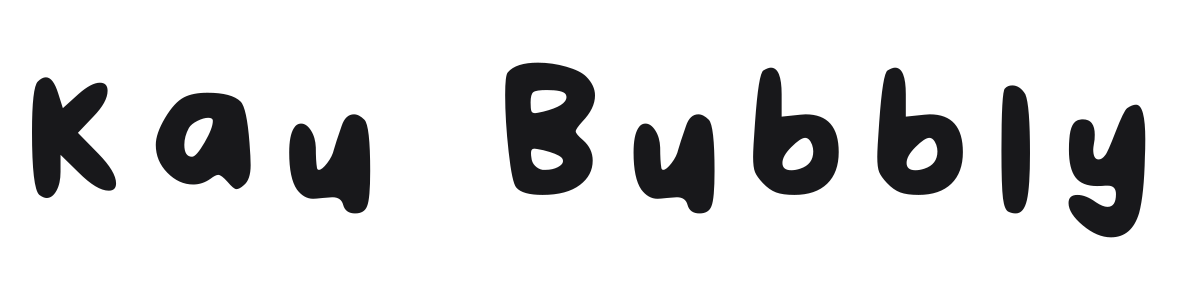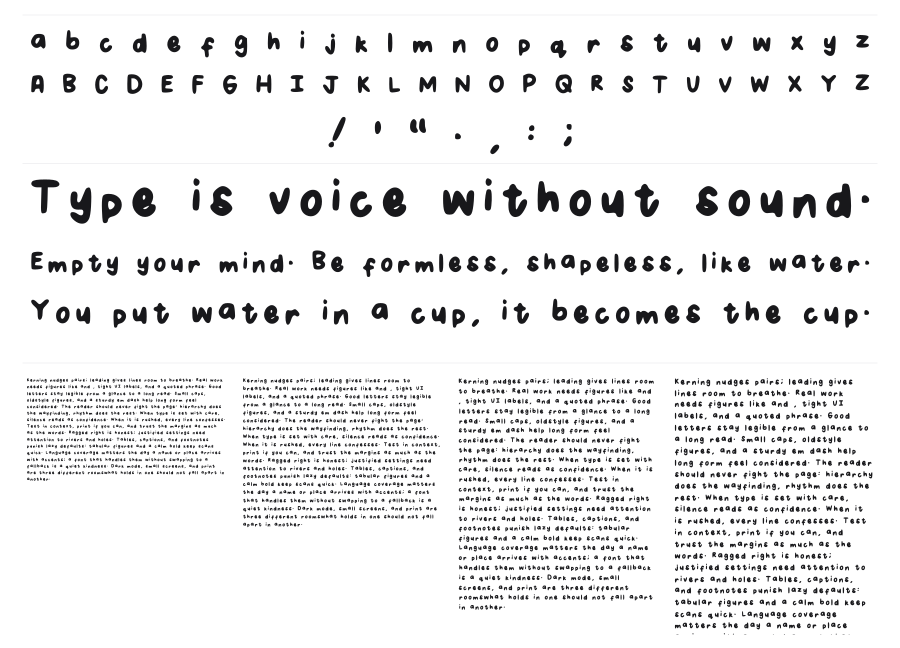
Kau Bubbly
Kau Bubbly is a chunky hand-drawn font with rounded, inflated characters and a loose casual energy. Each letter has its own slight wobble, making the whole thing feel sketched in marker rather than constructed. Great for anything that needs warmth and a lighthearted personality.